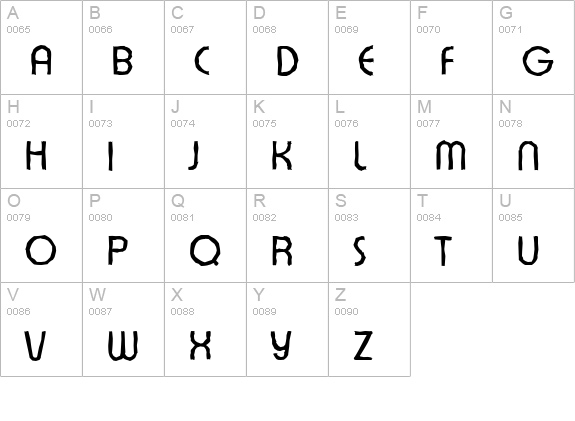
ExpressaAntique-Regular is the standard, neutral variant in the ExpressaAntique typeface family \xE2\x80\x94 well suited to general body text, paragraphs, and standard typographic work.
ExpressaAntique-Regular is a classic and elegant font that exudes a sense of sophistication and charm. With its timeless and stylish appearance, this font is perfect for adding a touch of vintage flair to any project. The refined curves and intricate details of ExpressaAntique-Regular make it a versatile choice for a variety of design applications. This exquisite font is available for free download at FontsMarket.com, allowing designers and creatives to access its beauty and grace without any cost. Whether you are working on a branding project, invitation design, or any other creative endeavor, ExpressaAntique-Regular is sure to elevate your work with its distinctive appeal. Embrace the timeless beauty of ExpressaAntique-Regular and bring a touch of antique charm to your designs today.